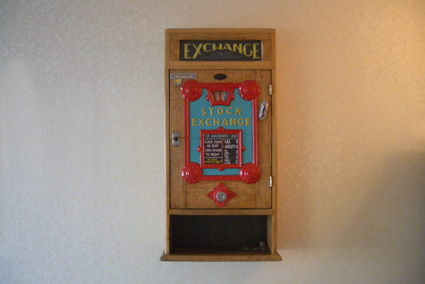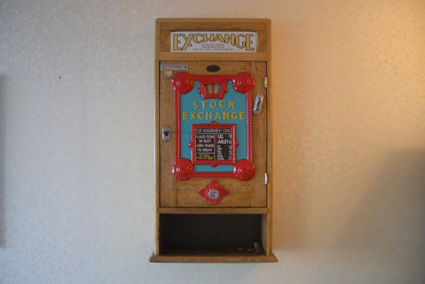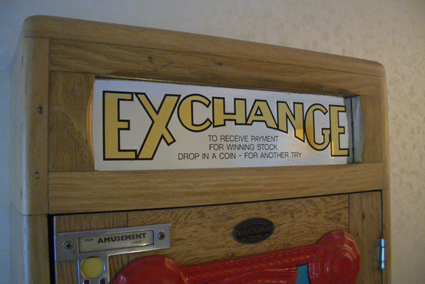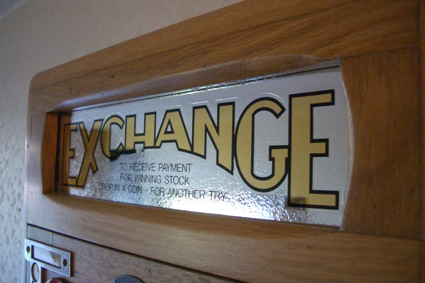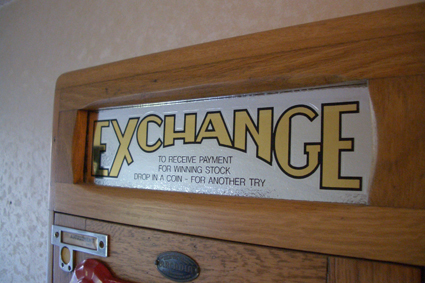
'Restoration' Antique Slotmachine
Years ago my parents bought a an antique slotmachine at an auction.
The main panel had a text written on paper. The paper was not original so my father made the same lettering using vinyl on perspex (3 inch high x 12 inch wide).
They are now cruising Britain with their caravan and I thought it would be nice to suprise tem.
I would give it a try to make something better than the perspex 'thing'.
Glass, mica etched, painted black outlines, silvered (black outlines were not attacked by the silver solution) and waterilded with 23,75 crt goldleaf.
Here are some photo's (unfortunatly the relief etching is not to be seen vey good on the photo's):
Due to the factthat the machine is hung up very hgh, the reflection of the light does not shimmer a lot when standing infront.
Therefore, next time I will engine turn the gold or mica etch the glass underneath also.
Still learing...
Ofcourse I saved the paper and perspex sign and they are kept save inside te machine itself.
Still in the learning phase ;-)